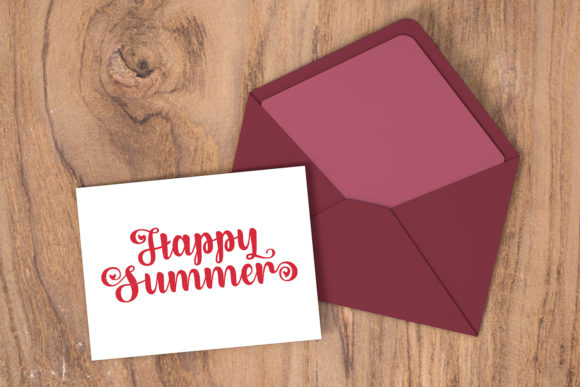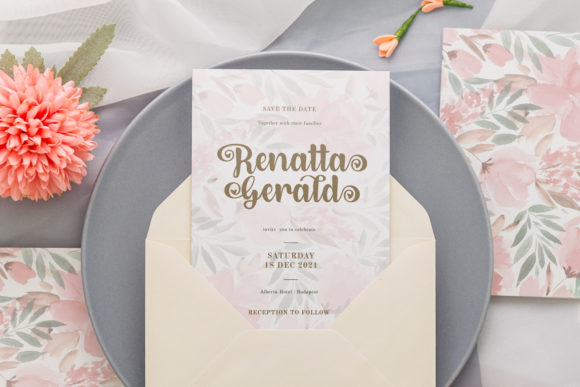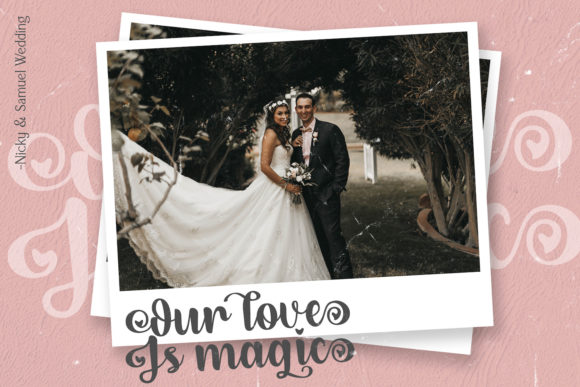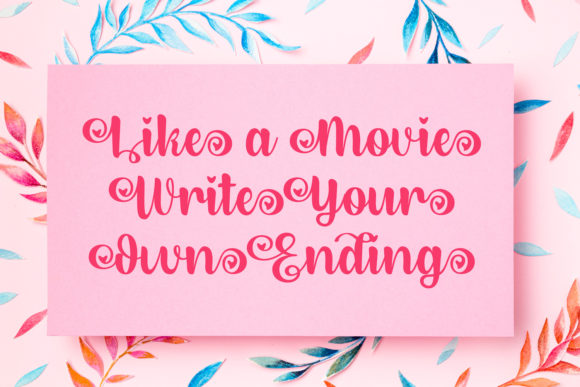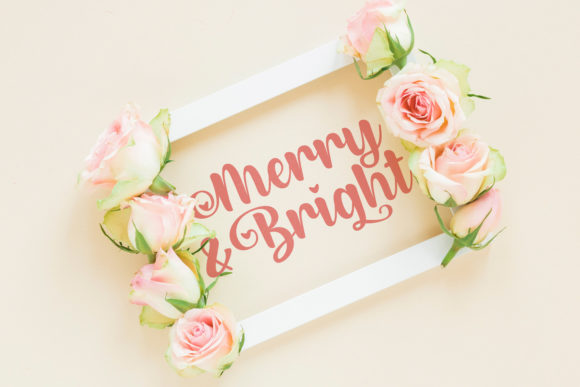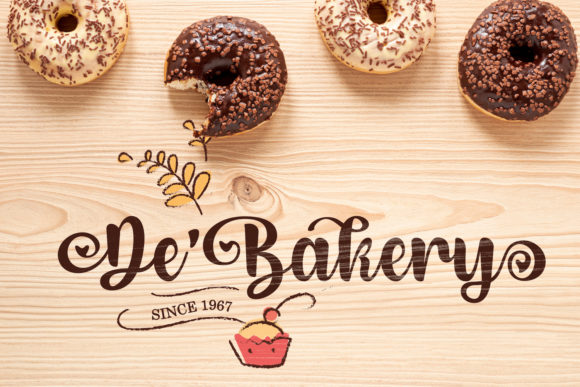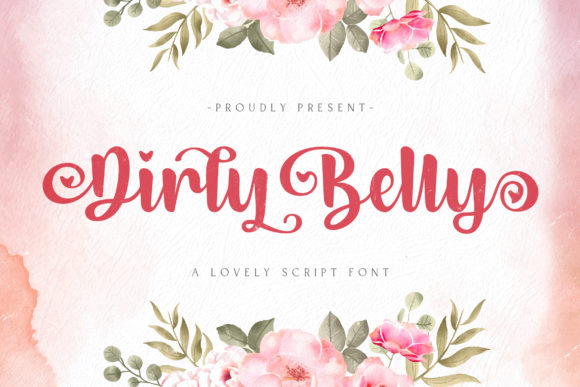
Discover the Elegance of Dirly Belly Font: Elevate Your Designs with a Touch of Sophistication
Are you on the hunt for a font that exudes elegance, sophistication, and a dash of modern flair? Look no further than the Dirly Belly font, a stunning handwritten typeface that is sure to capture your heart. Designed with meticulous attention to detail, Dirly Belly seamlessly blends classic calligraphic influences with a fresh, contemporary vibe, making it the perfect addition to your design arsenal.
The Essence of Dirly Belly Font
Dirly Belly is more than just a font – it’s an exquisite piece of art that brings a touch of luxury to any project. Its masterful design ensures that it stands out from the crowd, offering a unique and refined aesthetic that is sure to leave a lasting impression. Whether you’re working on a branding project, crafting beautiful stationery, or creating engaging digital content, Dirly Belly is the perfect choice for designers and crafters who demand the best.
Unleash Your Creativity with Dirly Belly
One of the most significant advantages of Dirly Belly is its versatility. This font is incredibly flexible, allowing you to use it across a wide range of projects and applications. From elegant logos and sophisticated packaging to beautiful wedding invitations and stylish blog headers, Dirly Belly can adapt to any design need. Its classy calligraphic roots provide a sense of tradition and timelessness, while its modern undertones keep it feeling fresh and relevant.
Why Choose Dirly Belly Font?
• Exquisite Design: Dirly Belly boasts an intricate design that sets it apart from more generic fonts. Its unique character ensures that your projects will have a distinctive look that captures attention.
• Classy yet Contemporary: The font strikes the perfect balance between classic elegance and modern simplicity, making it suitable for a wide array of design projects.
• Versatility: Dirly Belly can be used in various contexts, from digital platforms to print materials, ensuring that your designs maintain consistency across different mediums.
Inspiration and Ideas for Dirly Belly
To truly appreciate the beauty of Dirly Belly, it’s essential to see it in action. Here are a few ideas to get you started:
• Wedding Invitations: Create bespoke wedding invitations that reflect the elegance and joy of the occasion.
• Branding: Use Dirly Belly as a logo or in marketing materials to give your brand a sophisticated edge.
• Blog Headers: Elevate your blog’s aesthetic with stylish headers that capture the essence of your content.
• Social Media Graphics: Stand out on social media with beautifully designed posts and stories.
Dirly Belly font is a game-changer for designers and crafters looking to infuse their projects with a sense of elegance and sophistication. Its unique blend of traditional calligraphy and modern design makes it a versatile and valuable addition to any creative toolkit. By choosing Dirly Belly, you’re not just selecting a font – you’re elevating your designs to new heights. So, why wait? Fall in love with Dirly Belly and bring your projects to the highest levels of creativity and refinement.